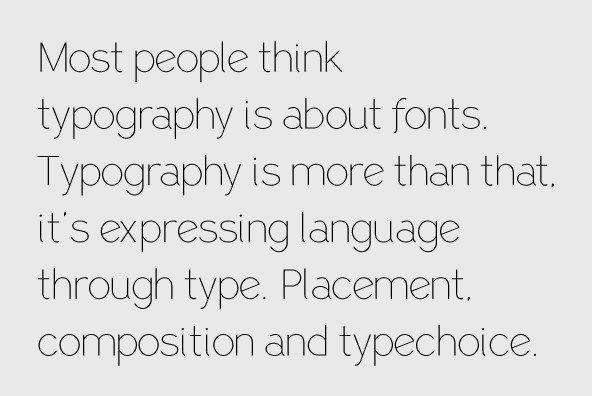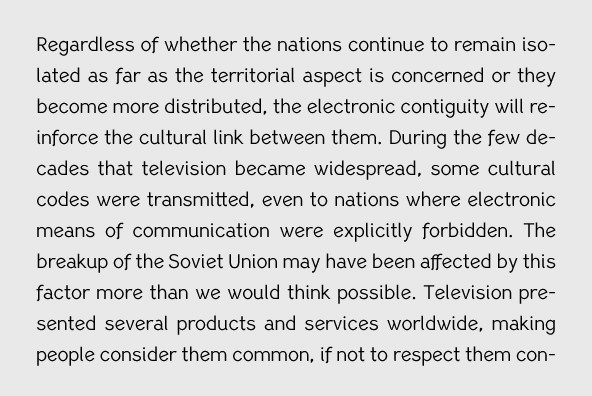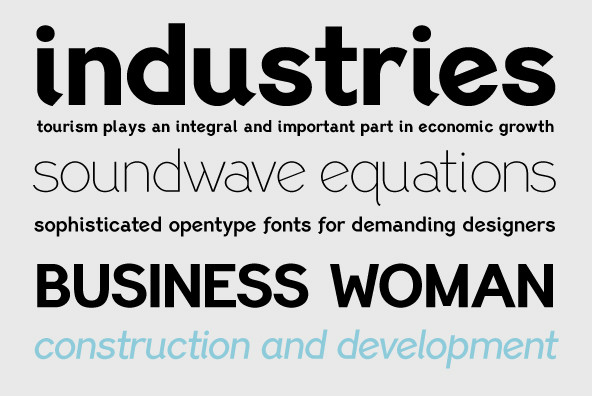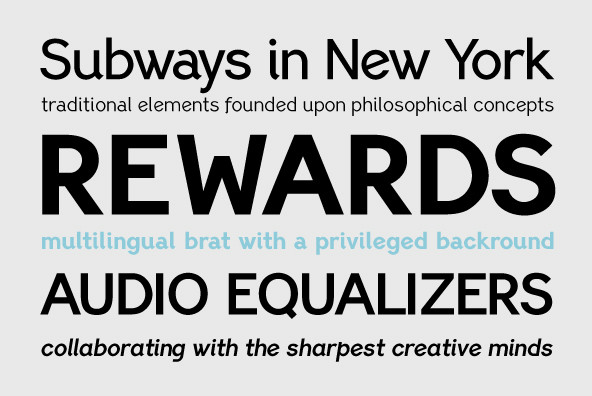
PF Lindemann Sans
Lindemann Sans is an immediately inviting typeface with a pleasing distinct visual voice grounded by geometry and golden proportions. This modern geometric san serif typeface serves the interpretive needs of modern design through its legibility. This legibility is achieved through proportional balance of each letter based on the golden ratio, open counters, high x-height and wider individual shapes. In addition, a high level of legibility is arrived through distinctive glyphs like a, e, @, and f, which are engaging and add to Lindemann Sans visual voice. Being a modern, spirited, tech-savvy typeface, Lindemann Sans has many of the features demanded by today's designers. These features include 800 characters within each font, many ligatures, full numbers sets, small caps, alternative characters and other niceties found in opentype fonts. Due to Lindemann Sans high legibility, geometric sans tradition, and a large feature set list, it is a very versatile typeface and can be used in replacement of the more commonly used sans. Specifically, Lindemann Sans can be used by technology corporations, architectural firms in their supporting materials, in magazines as headers and key-points, as the typeface for professional keynotes, for the package design industry as a whole, in automotive concept projects, and for cosmetic branding for high class hair products. With its inviting nature it may also be used for liberal arts promotional materials. In addition, this typeface can be used by green industries because of its nature derived proportions. Each style and weight of Lindemann Sans adheres to the same geometric and golden proportions, however, each weight is innately noteworthy. For example, there is a charm that is found in the ultralight weight's elegant geometry and lights impressive use as oversized headlines. It shines with true clarity of vision with the book weight and the versatility of the medium. One cannot overlook the power and pacing of the bold and extra bold weights with its clear counters and restrained letter forms. Within Lindemann Sans family each weight has a distinctive role to play but stays true to its purpose.